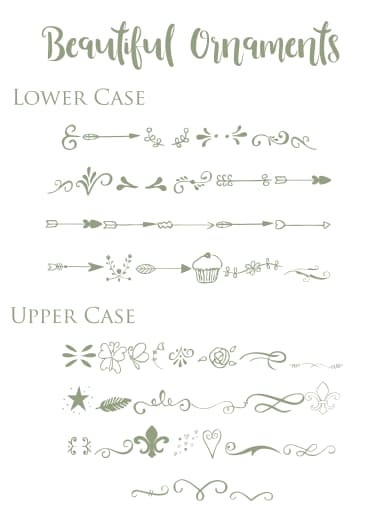
Beautiful Font by Kylie Ellway is a dynamic brush script featuring distinctive movement and high contrast letterforms that command attention. The font's lively baseline creates an organic feel that works beautifully across both digital and print applications. Paired with an extensive collection of bonus ornamental elements, it offers designers a complete toolkit for cohesive visual projects.
This script excels in wedding invitation suites where elegance meets personality, creating memorable stationery that guests admire. It's equally suited for luxury product packaging, greeting card designs, and upscale brand identity packages that demand sophistication without sacrificing warmth. The ornaments expand creative possibilities for decorative accents and border elements that enhance layouts. The high-contrast letterforms remain readable at various sizes while maintaining their sophisticated character.
Whether you're crafting event signage, designing social media graphics with impact, or developing a complete branding system, Beautiful Font's combination of technical precision and artistic flair provides the versatility needed for professional results. The script's energetic character brings personality to professional contexts, making it ideal for designers seeking a refined yet approachable aesthetic. Discover Beautiful Font on Creative Fabrica and bring polished elegance to your next project.
Beautiful Font is a script font that shines as a display or heading face. Pair it with a clean sans-serif or serif font for body text — the contrast creates a clear hierarchy while the two styles stay balanced and easy to read.